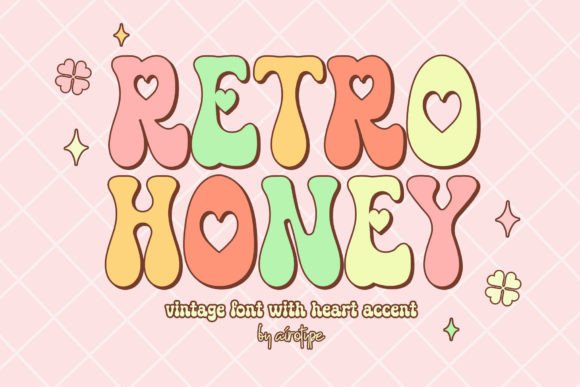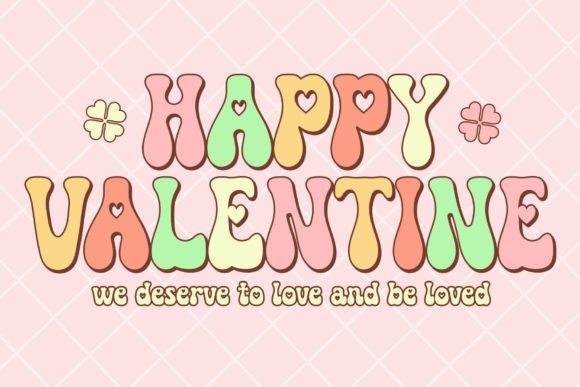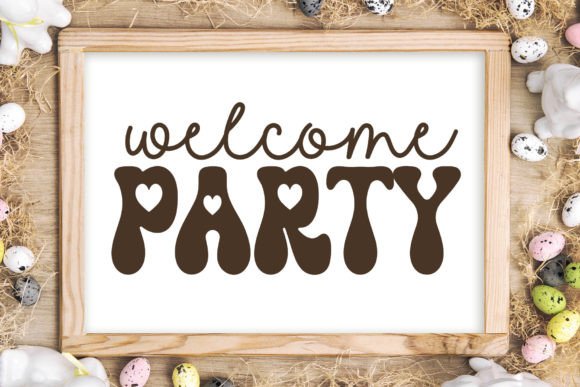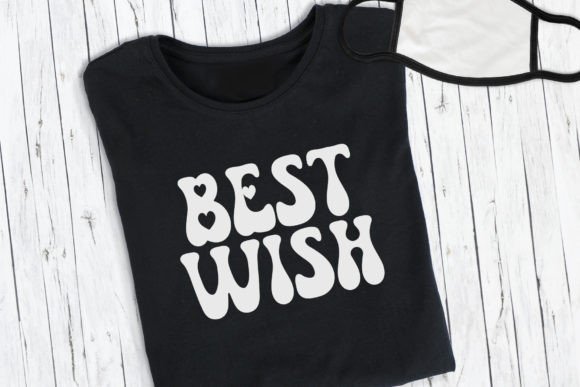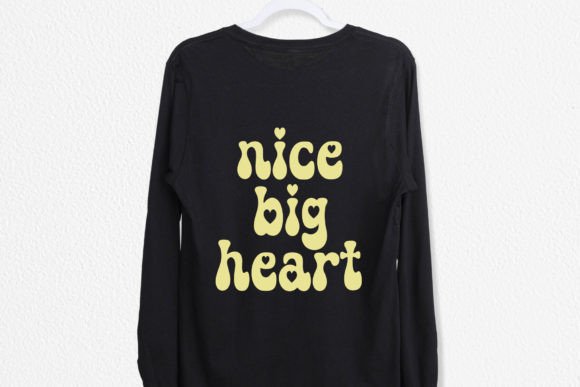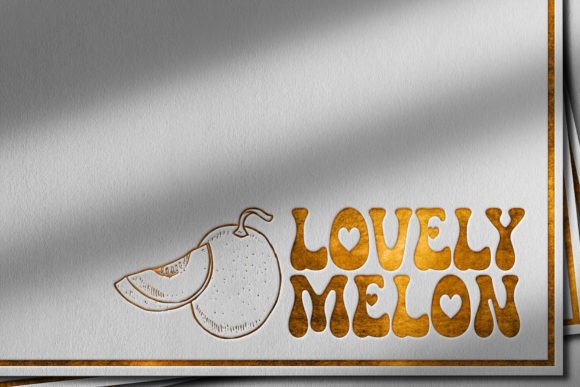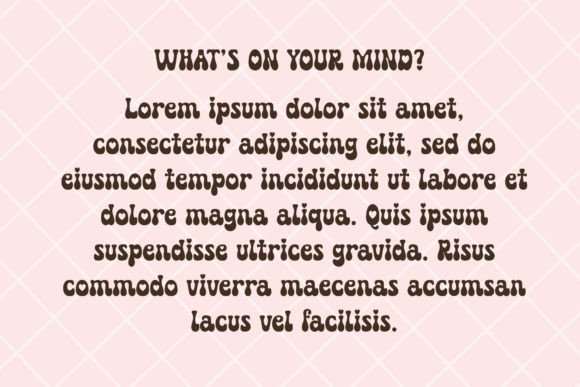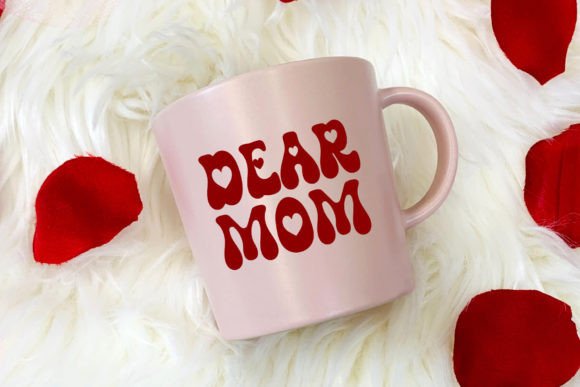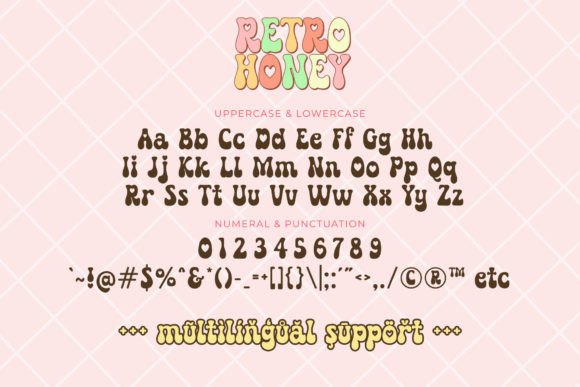
Retro Honey Font
Retro Honey is a vintage font with a heart accent in its character. This font is pretty, groovy, and playful.
This font is a lovely and cute font that will radiate vintage and love in your design. It can be used for a wide range of designs, such as Valentine’s Day, crafting, stickers, t-shirts, sublimation, and many more.